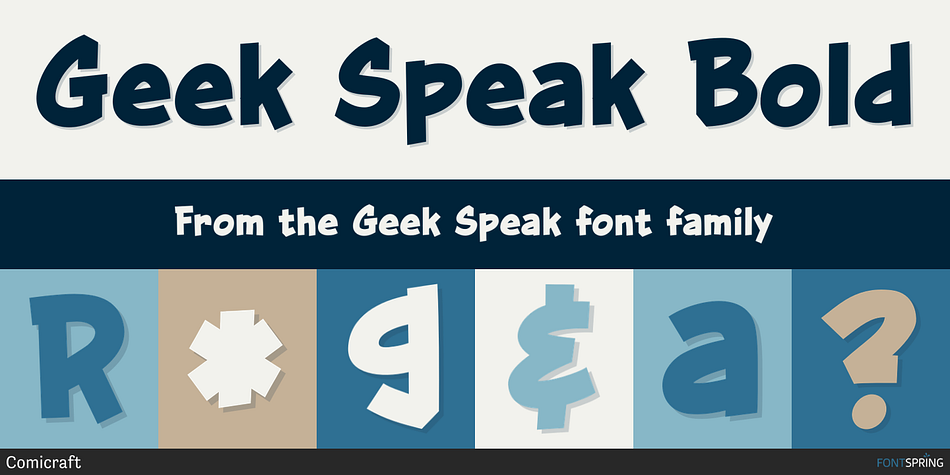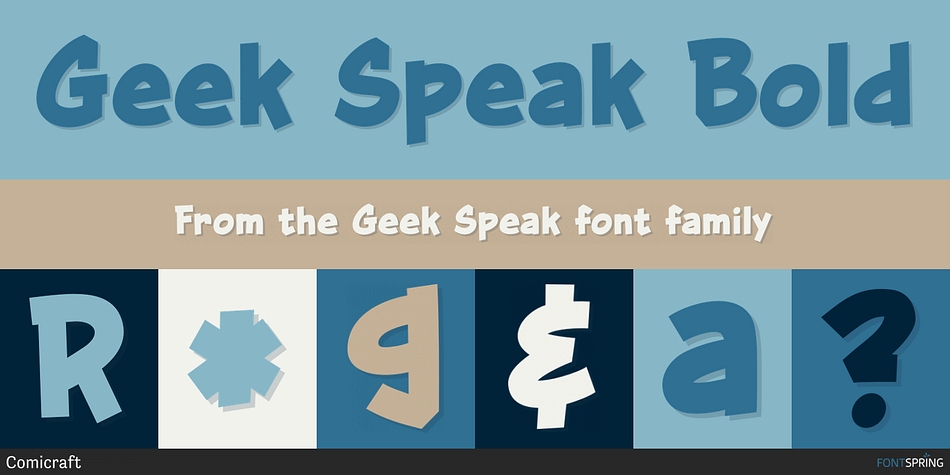
Geek Speak Bold
Designed by John Roshell, Geek Speak is a comic and hand drawn font family. This typeface has four styles and was published by Comicraft.
Scissors cuts paper, paper covers rock, rock crushes lizard, lizard poisons Spock, Spock smashes scissors, scissors decapitates lizard, lizard eats paper, paper disproves Spock, Spock vaporizes rock, and as it always has, rock crushes scissors.
If you’re familiar with this theory, you already Speak Geek, and now you can download a font that has 250 friends on comicbookfonts.com but has never met one of them. Take it to Comic-con this weekend and take photos of Wonder Woman cosplayers together then post them to your tumblr account… Or head down to the basement for D&D and debate the merits of George Lucas fiddling with his trilogies.
Yep, GEEKSPEAK shoots first—put that on a t-shirt! And gimme some Spock.
October 2020 – added Central European, Vietnamese & Cyrillic support, worldwide currency symbols and Crossbar I Technology™